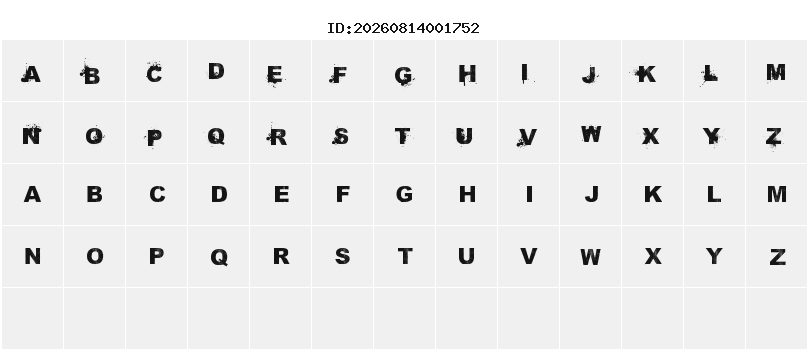
saMmiEs Sans serIf Preview
• Font Name: saMmiEs Sans serIf
• Full Font Name: saMmiEs Sans serIf
• Version: Version 1.00 June 14, 2010, initial release
• PostScript Name: saMmiEs Sans serIf
About saMmiEs Sans serIf.ttf
saMmiEs Sans serIf.ttf is a modern, elegant sans-serif font designed for ultimate readability and visual harmony. Perfect for branding, headlines, web design, and print materials.